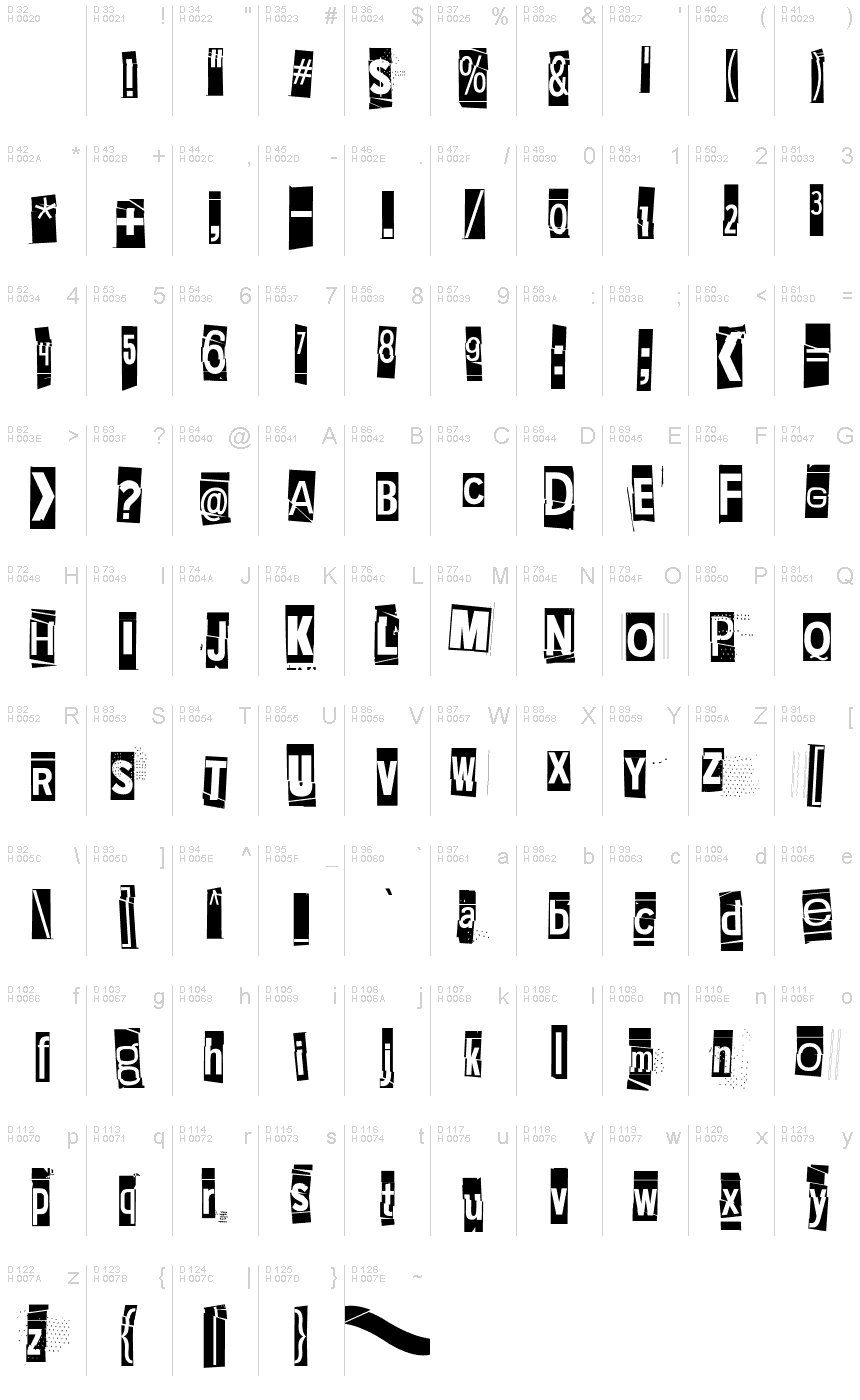
Extraoin Zhurdlyou Total War
Extraoin Zhurdlyou Total War is a daring and unconventional font designed by junkohanhero. With its negative display and distorted style, this semi-light typeface is perfect for projects that require an edgy and eye-catching look. Its unique design makes it ideal for branding materials, album covers, posters, and more. Whether you're looking to make a bold statement or add an element of surprise to your design, Extraoin Zhurdlyou Total War has got you covered. Stand out from the crowd with this one-of-a-kind font that's sure to leave a lasting impression on your audience!